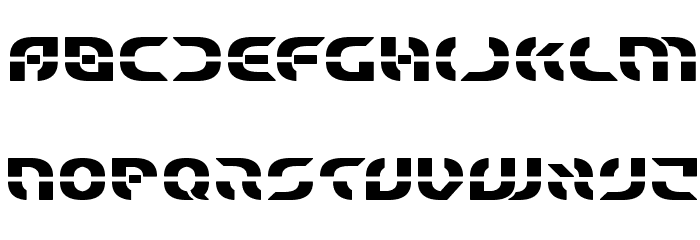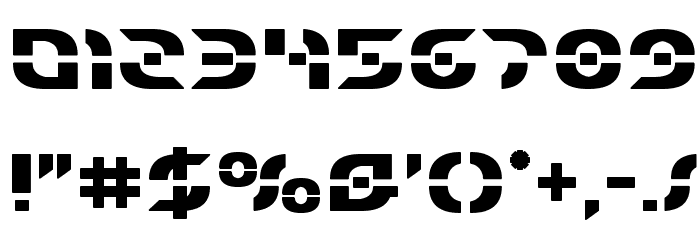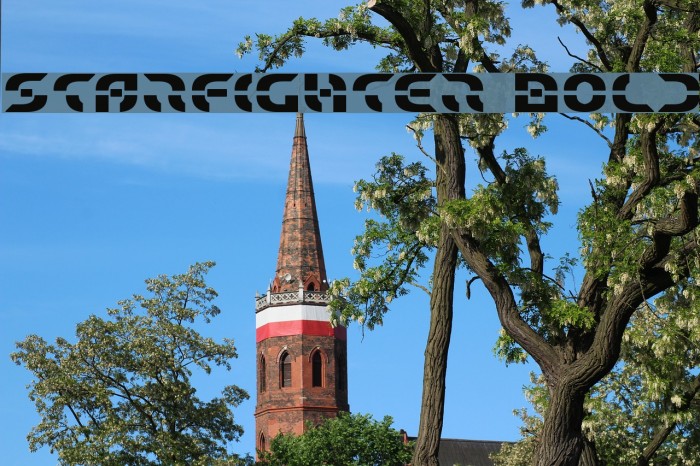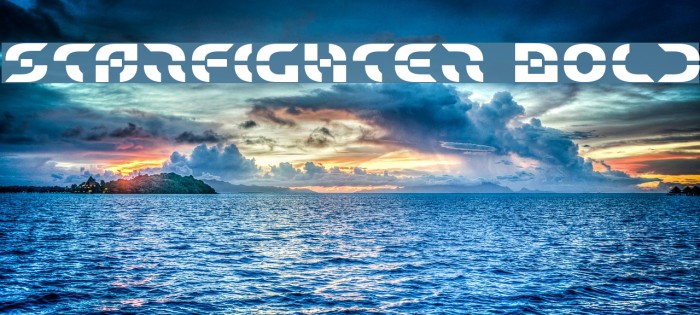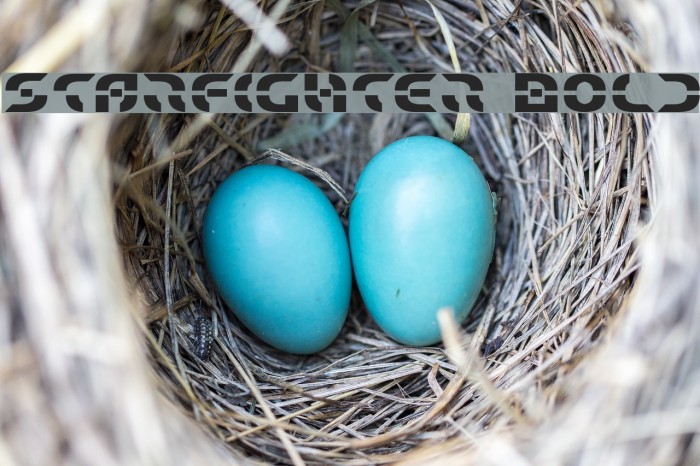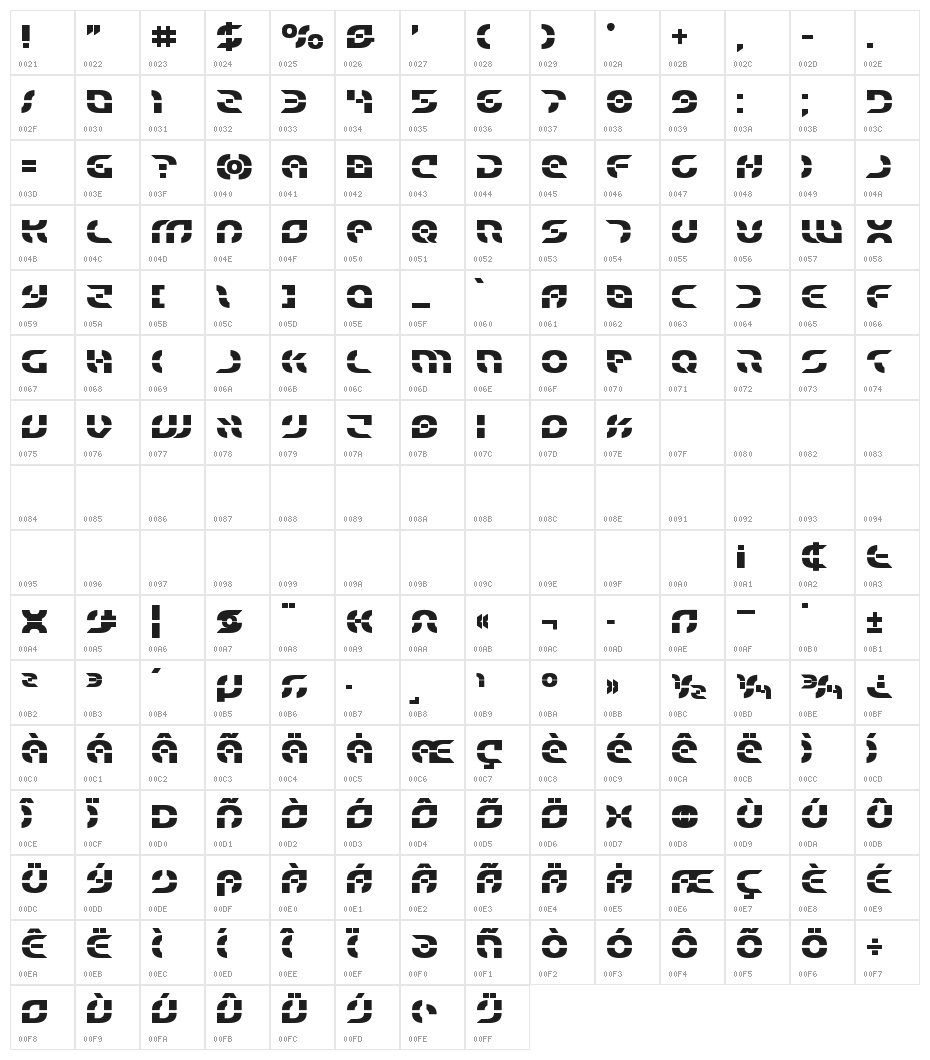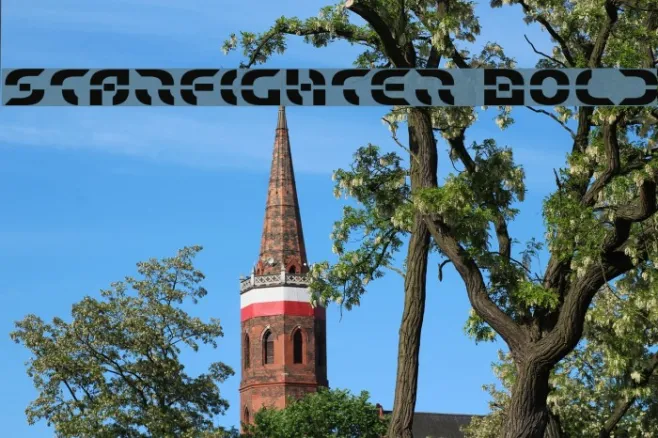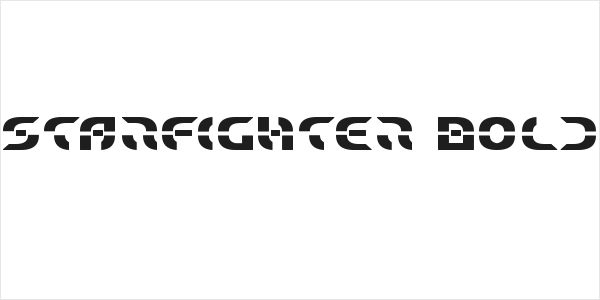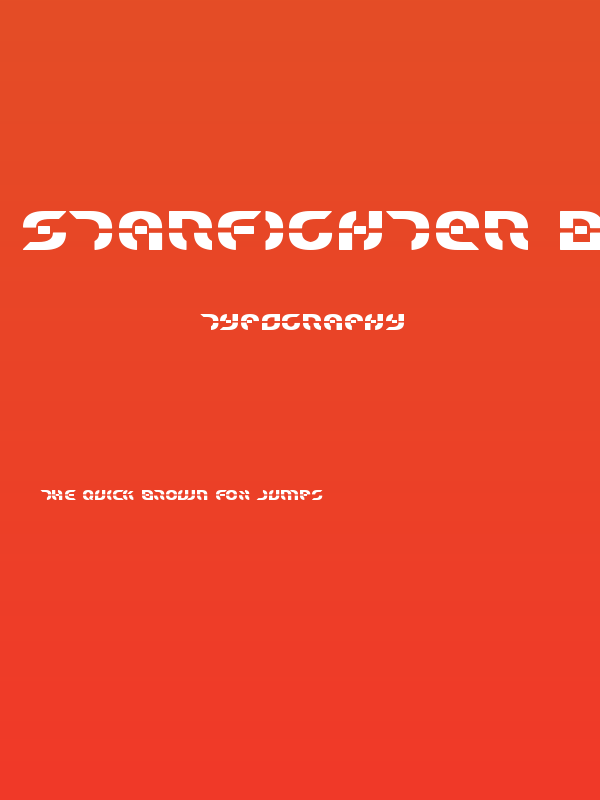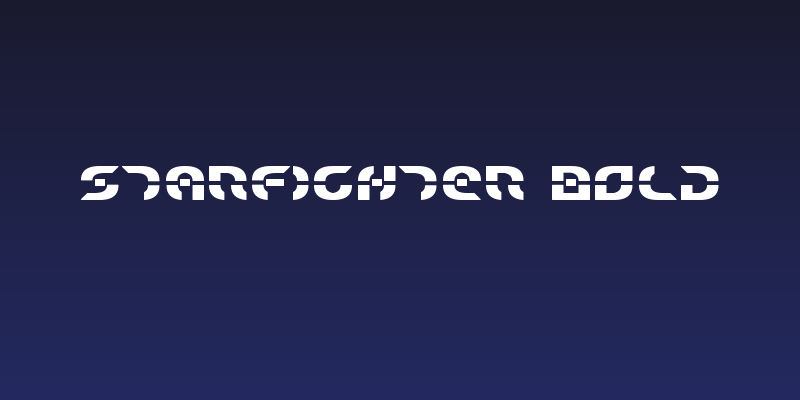
Starfighter Bold Font
This font features a futuristic and bold design with a distinct geometric style. The characters are constructed with sharp angles and cut-out sections, giving it a stencil-like appearance. The uppercase and lowercase letters maintain a uniform width, creating a cohesive look. The numbers and special characters follow the same design principles, ensuring consistency across all glyphs. Its unique style is reminiscent of sci-fi themes, making it ideal for projects that require a modern and edgy aesthetic.
A bold, futuristic font with geometric and stencil-like characteristics.
- Proposed Projects: Ideal for sci-fi themed designs, video game titles, movie posters, and branding for tech companies.
- Overall Style: Futuristic